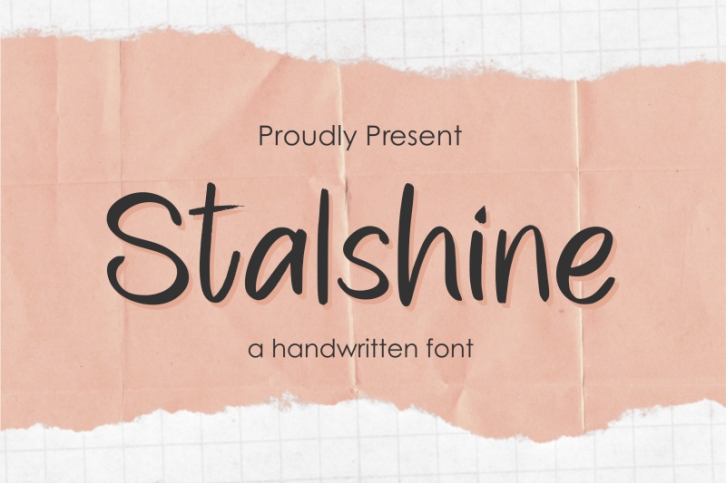
Introducing by Qwrtype
Proudly Present, Stalshine
Stalshine is a Handwritten Font
Stalshine is perfect for product packaging, branding project, megazine, social media, wedding, or just used to express words above the background.